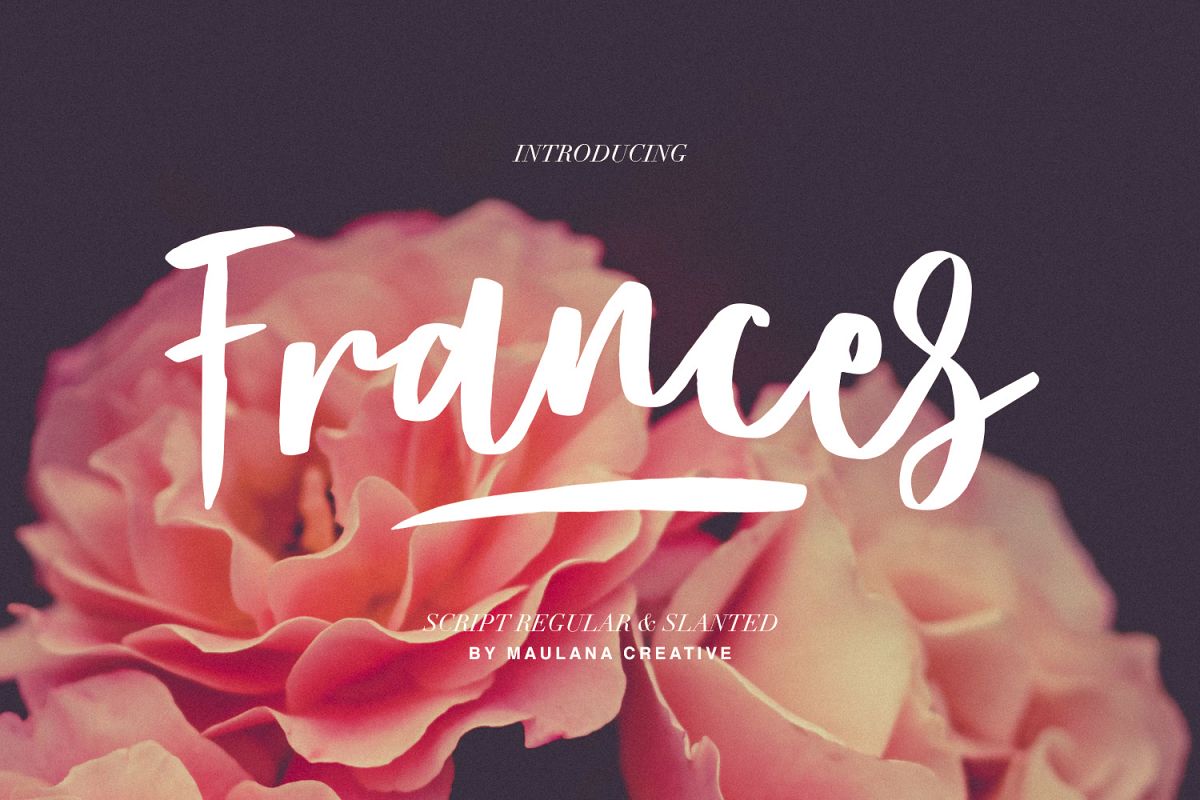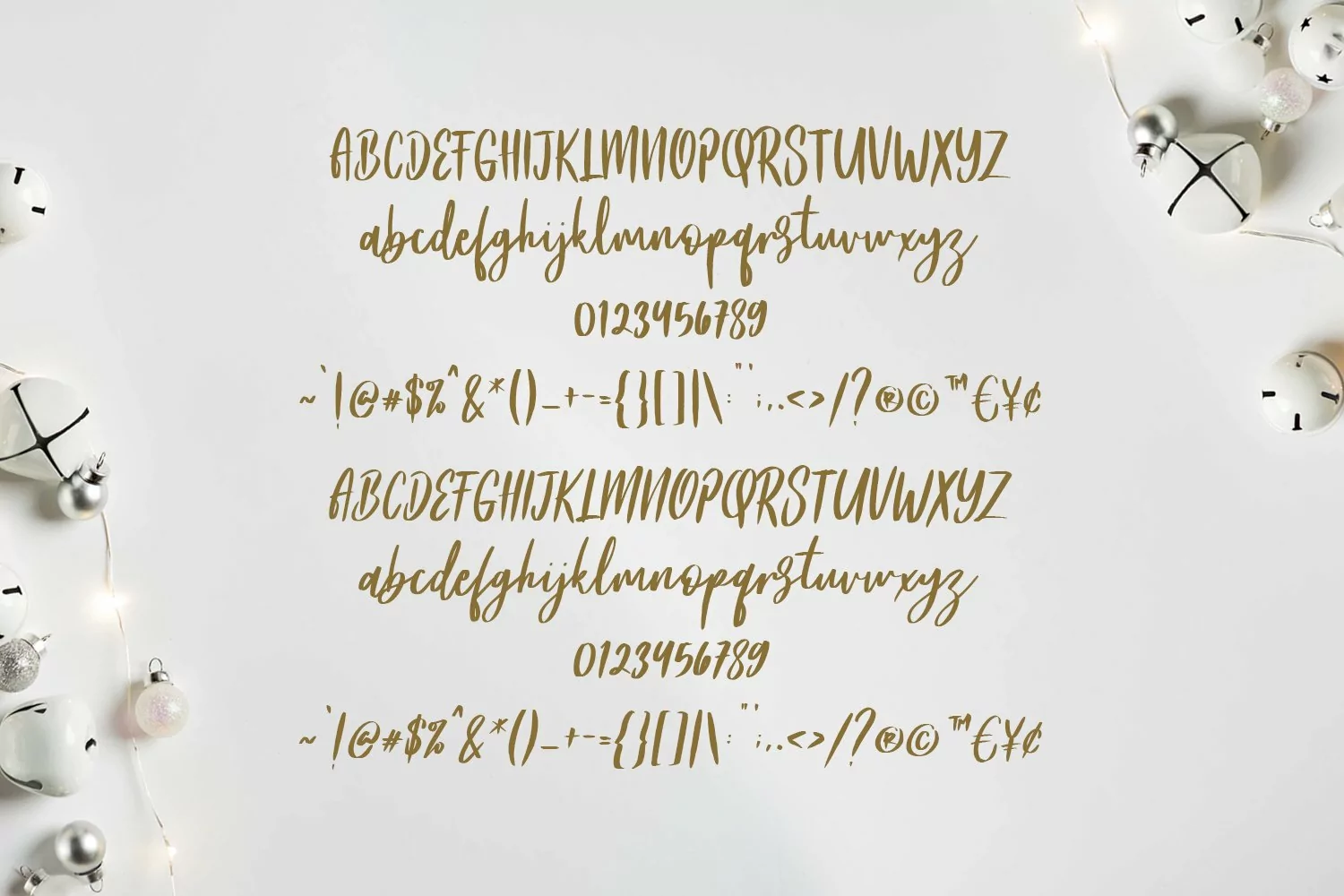
Frances
Give your designs an authentic handcrafted feel. "Frances" is perfectly suited to signature, stationery, logo, typography quotes, magazine or book cover, website header, clothing, branding, packaging design and more.